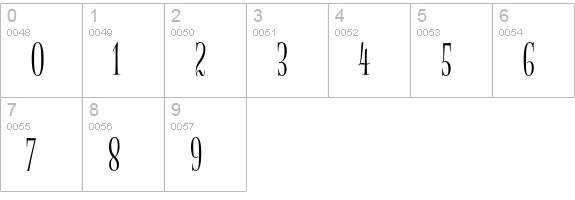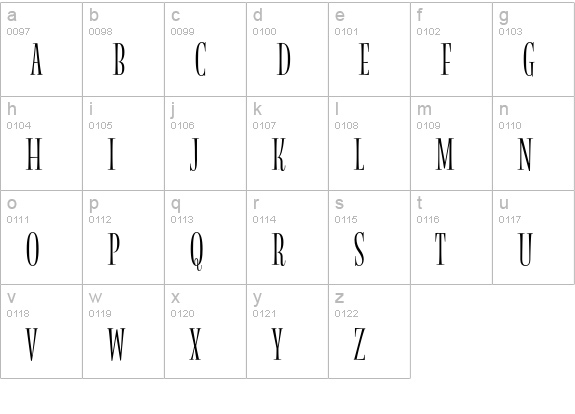
Magnolia MVB Font Details
Magnolia MVB font is a stunning and sophisticated typeface that exudes elegance and grace. Its delicate curves and intricate details make it a perfect choice for projects that require a touch of sophistication. The timeless design of Magnolia MVB font captures the essence of classic beauty, making it a versatile font that can be used in various contexts. With its generous x-height and balanced proportions, Magnolia MVB font offers excellent legibility and readability, ensuring that your message is conveyed with clarity and style. Whether it's used for headlines, body text, or branding materials, this font will make a lasting impression. The beauty of Magnolia MVB font lies not only in its design but also in its availability. It is freely available to download at FontsMarket.com, allowing designers and typographers to access this exceptional font without any constraints. This free availability opens up endless possibilities for creative professionals, enabling them to explore and experiment with Magnolia MVB font in their projects. The versatility of Magnolia MVB font extends beyond its design and availability. Its extensive character set includes various ligatures, alternates, and stylistic variations, giving you the freedom to customize and personalize your typography. Whether you're looking for a more traditional or contemporary look, Magnolia MVB font has the flexibility to adapt to your creative vision. In addition to its aesthetic appeal, Magnolia MVB font is also technically sound. It is optimized for screen and print use, ensuring that your typography looks flawless across various media. Its meticulous attention to detail and high-quality craftsmanship make it a reliable and professional choice for any design project. With its timeless beauty, impeccable legibility, and free availability at FontsMarket.com, Magnolia MVB font is a must-have for designers and typographers who seek a font that combines elegance and versatility. Embrace the sophistication of Magnolia MVB font and elevate your designs to new heights.